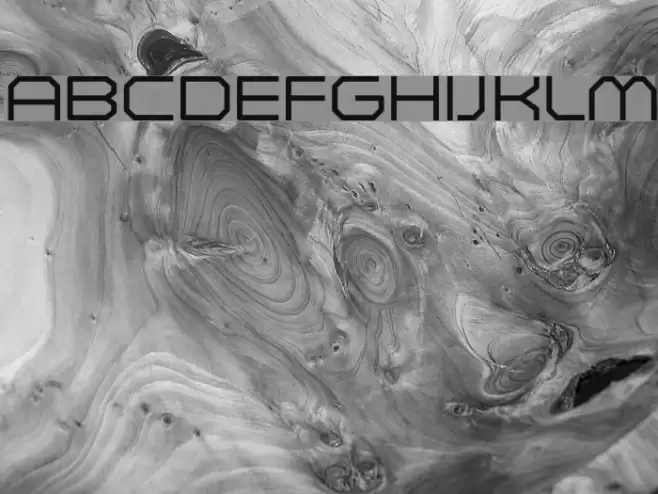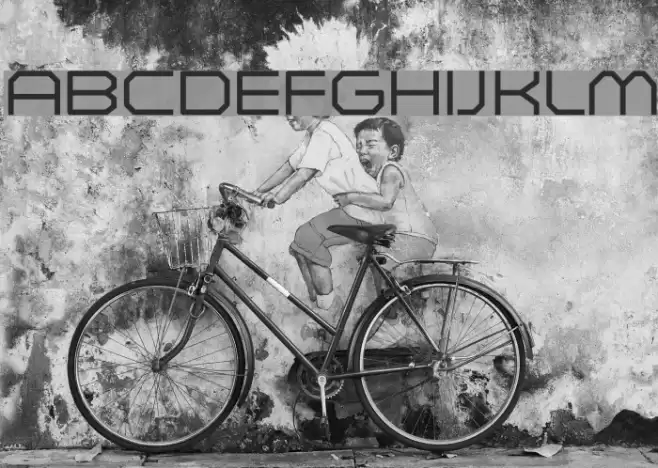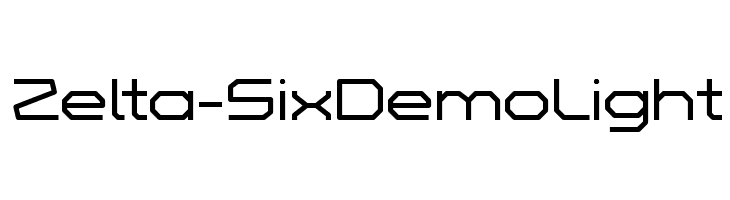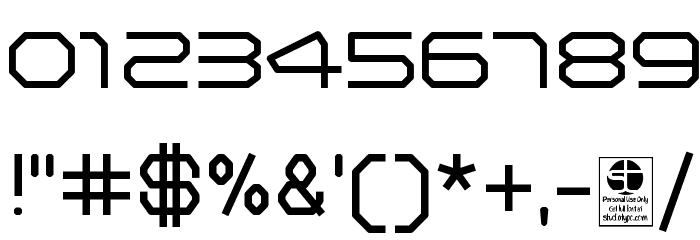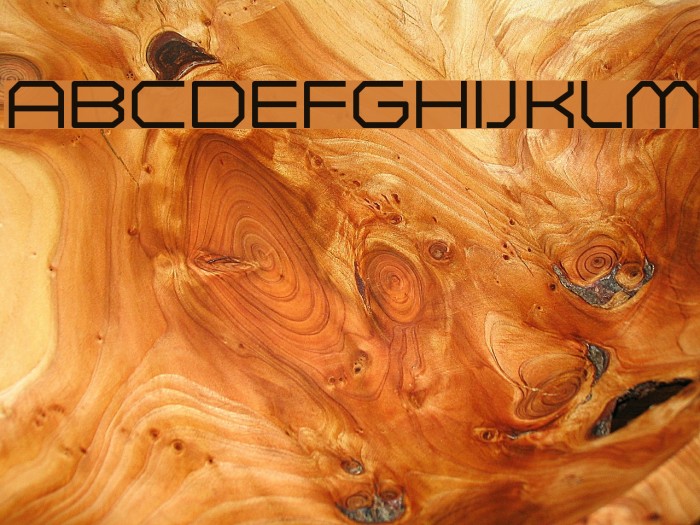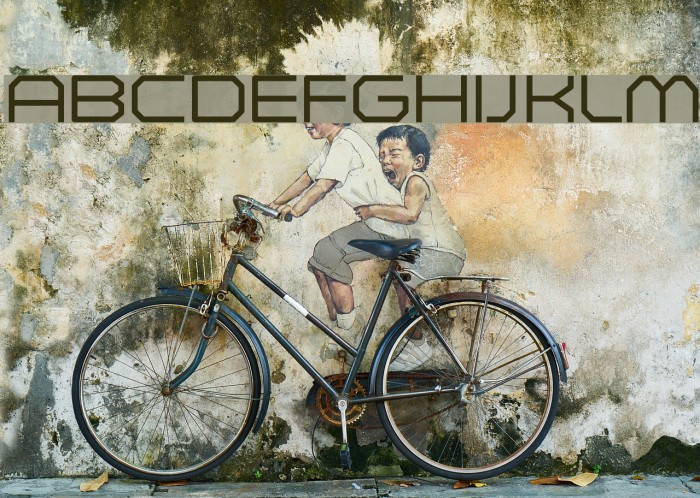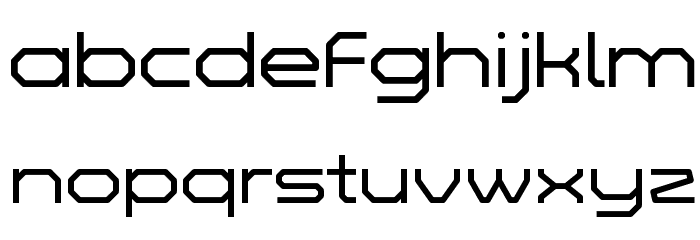
Zelta-Six Demo Light Font
Zelta-Six Demo Light Description
This font features a geometric and futuristic design, characterized by its angular and modular letterforms. The characters are constructed with straight lines and sharp angles, giving it a digital and modern appearance. The uppercase and lowercase letters maintain a consistent style, with a uniform stroke width that adds to its clean and structured look. The numerals and special characters follow the same design principles, ensuring a cohesive visual identity across all glyphs. This font's unique style makes it suitable for projects that require a contemporary and tech-inspired aesthetic.
A geometric, futuristic font with angular and modular letterforms.
- Proposed Projects: Ideal for tech branding, digital interfaces, video game design, and sci-fi themed projects.